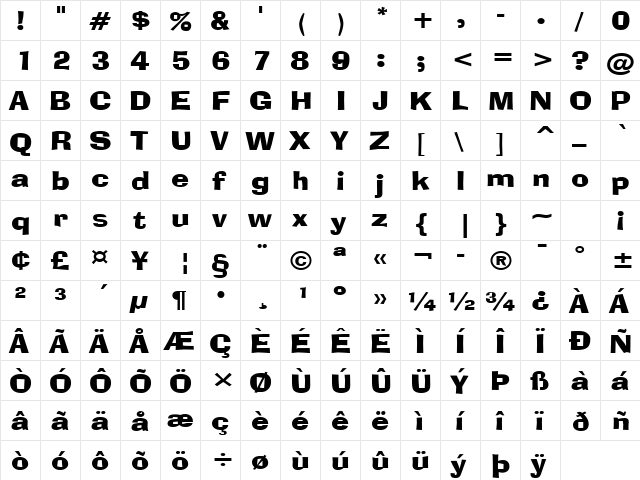
Alor-Extended Normal
Design Context for Alor-Extended Typeface
Alor-Extended takes a measured approach to typography — its balanced proportions and neutral character make it a reliable workhorse for both digital and print work.